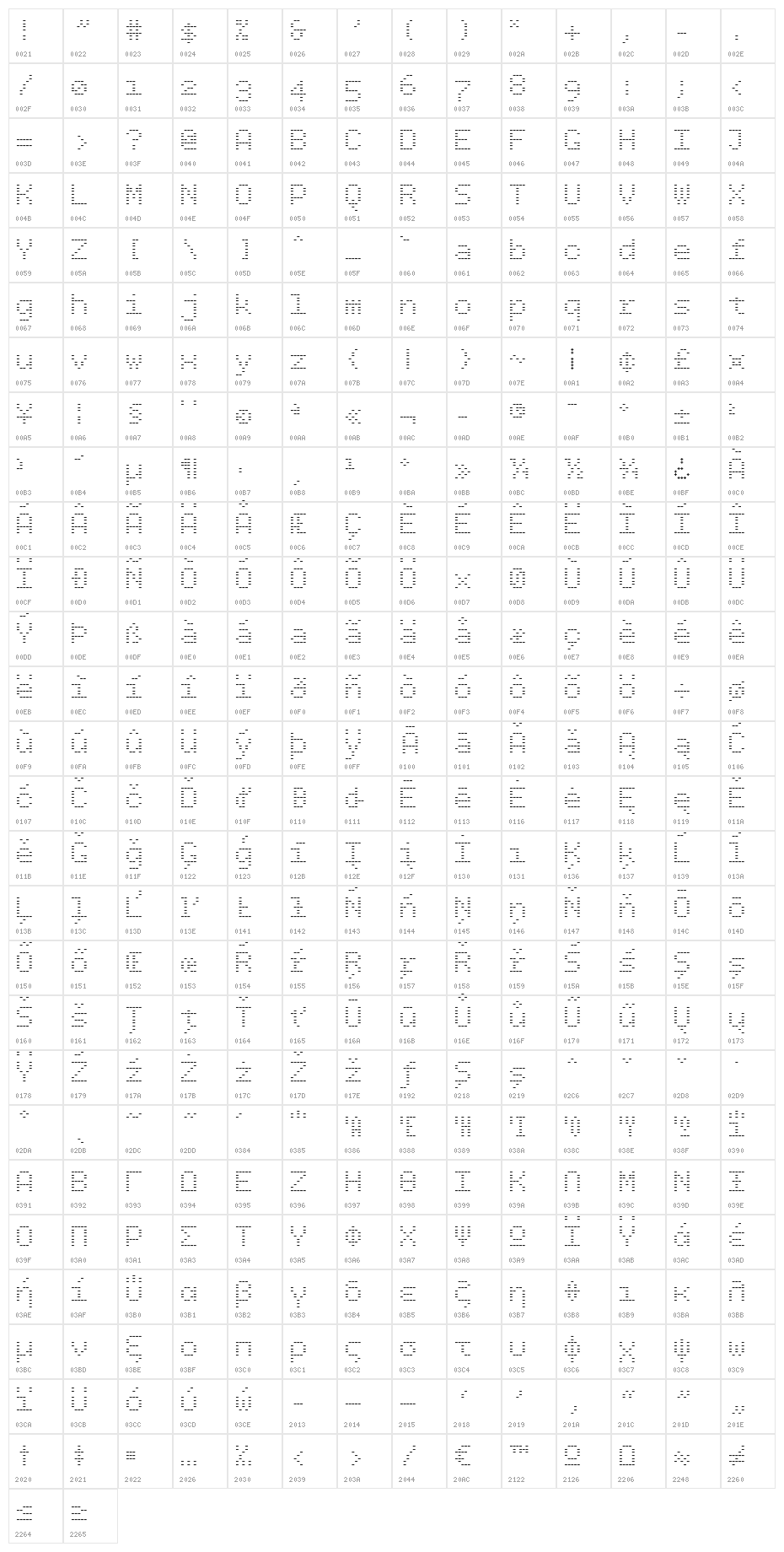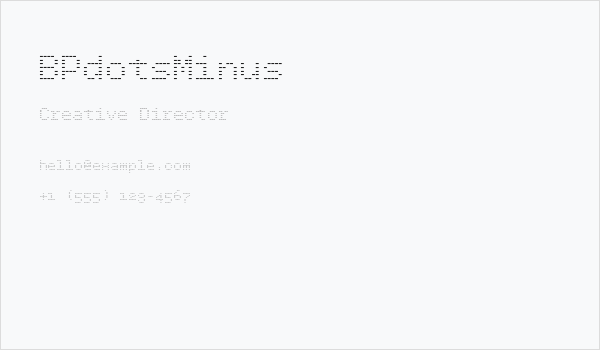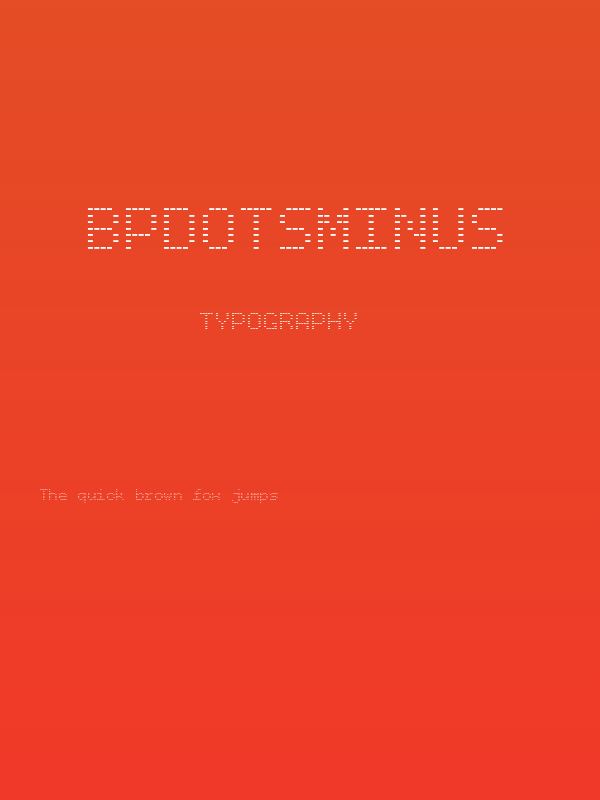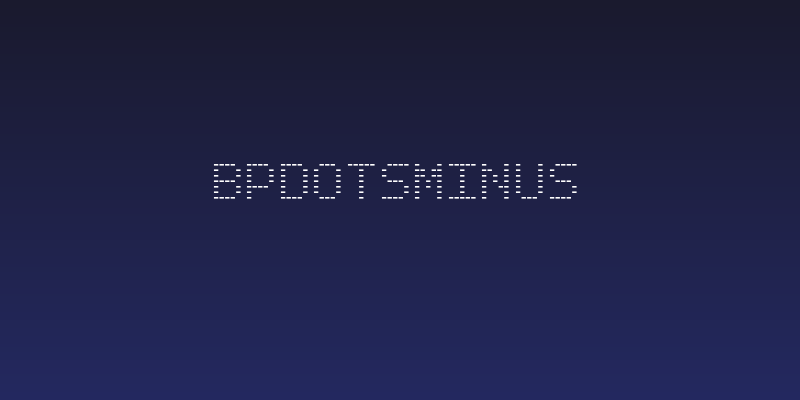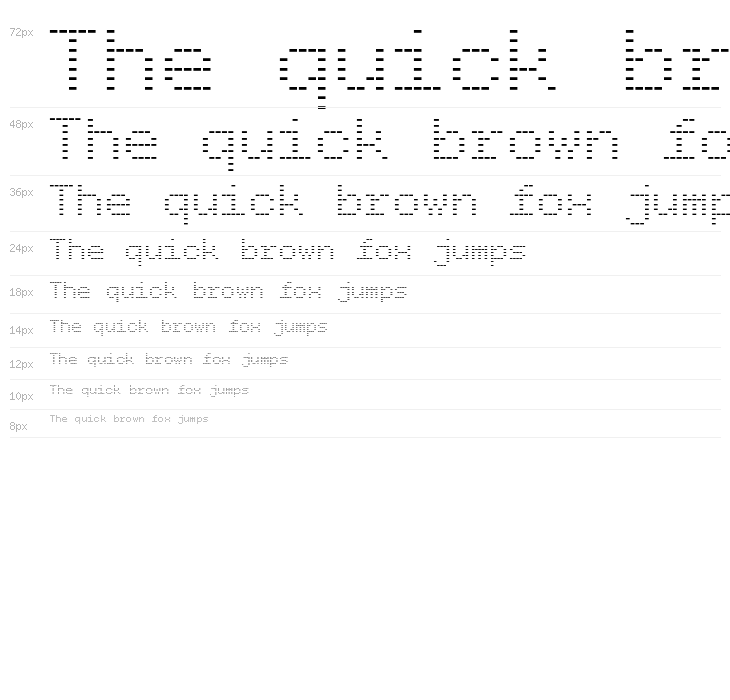
BPdotsMinus Font
BPdotsMinus Description
This font features a distinctive dotted style, where each character is composed of small, evenly spaced dots. The design is uniform across both uppercase and lowercase letters, as well as numbers and special characters. This creates a digital or retro aesthetic reminiscent of early computer displays or dot matrix printers. The spacing between the dots is consistent, giving the font a clean and organized appearance. Despite its unique construction, the characters remain easily legible, making it suitable for creative and decorative purposes.
| Overall Style | Retro, Digital |
| Use Case | Logos, Posters, Creative Displays |
| Proposed Projects | Ideal for digital art projects, retro-themed designs, tech-related branding, and creative posters. |